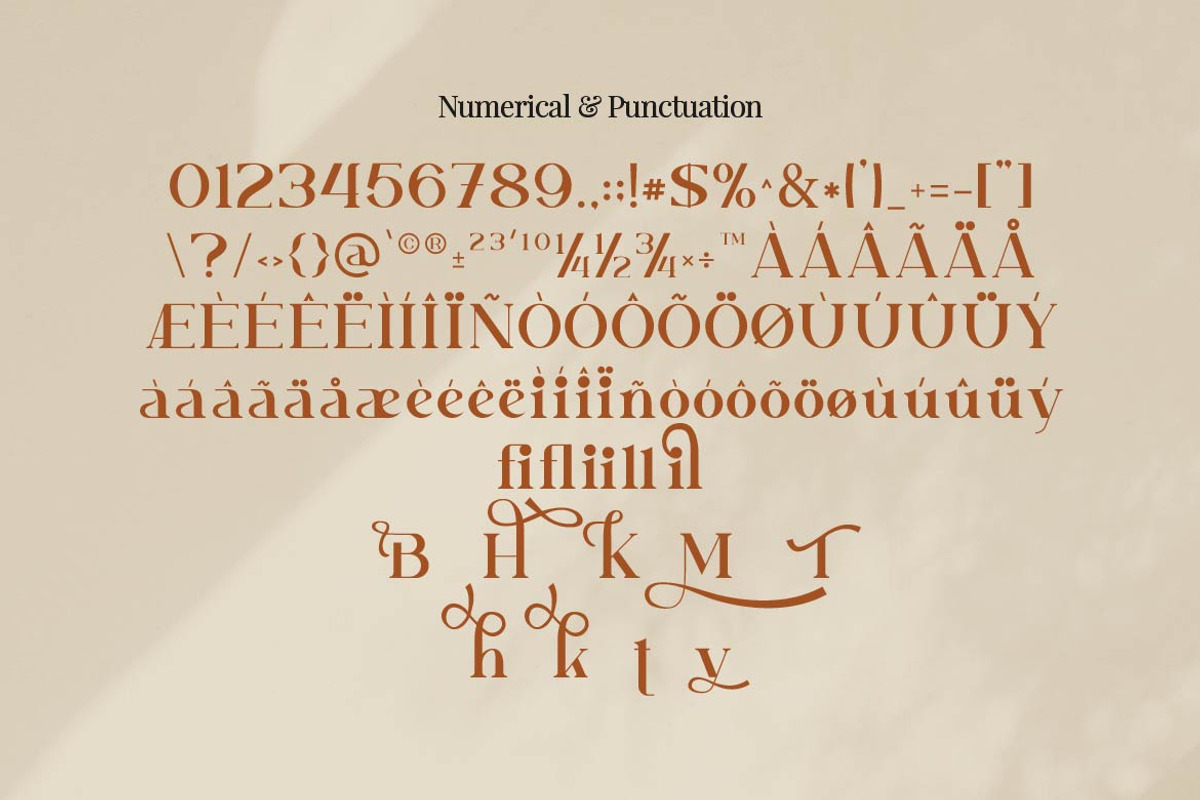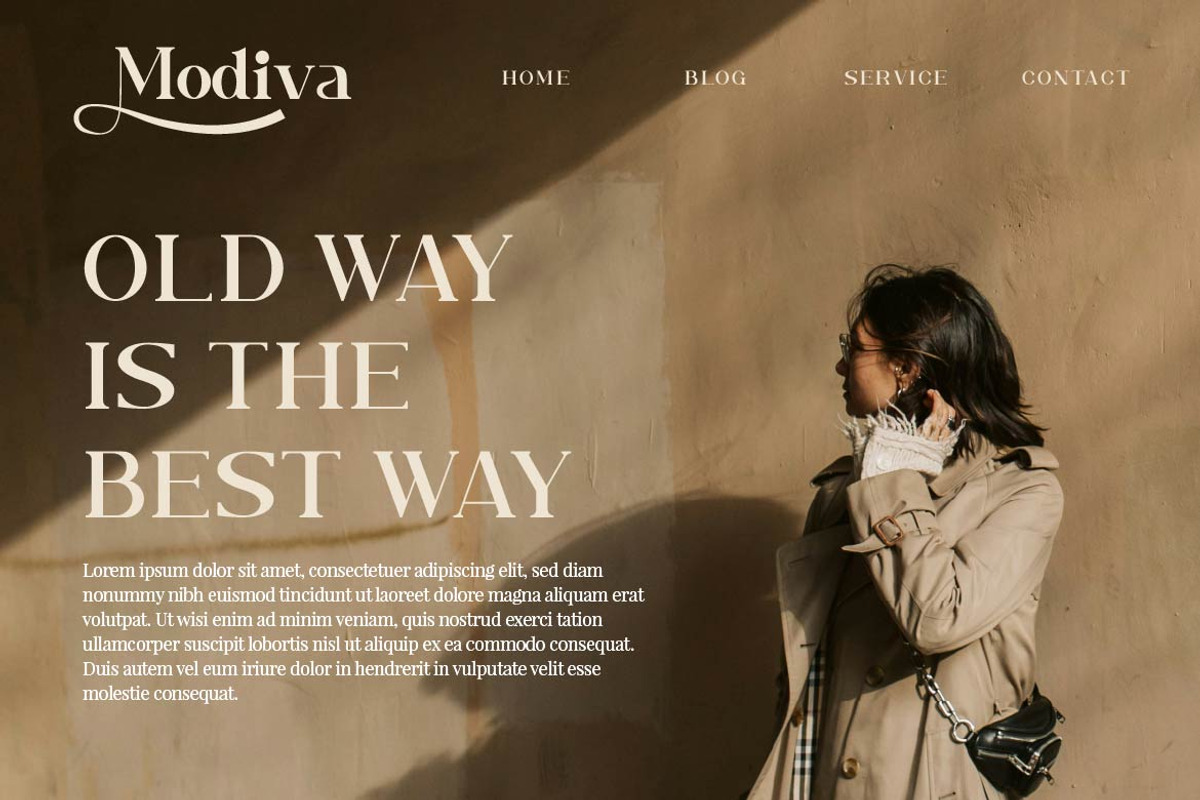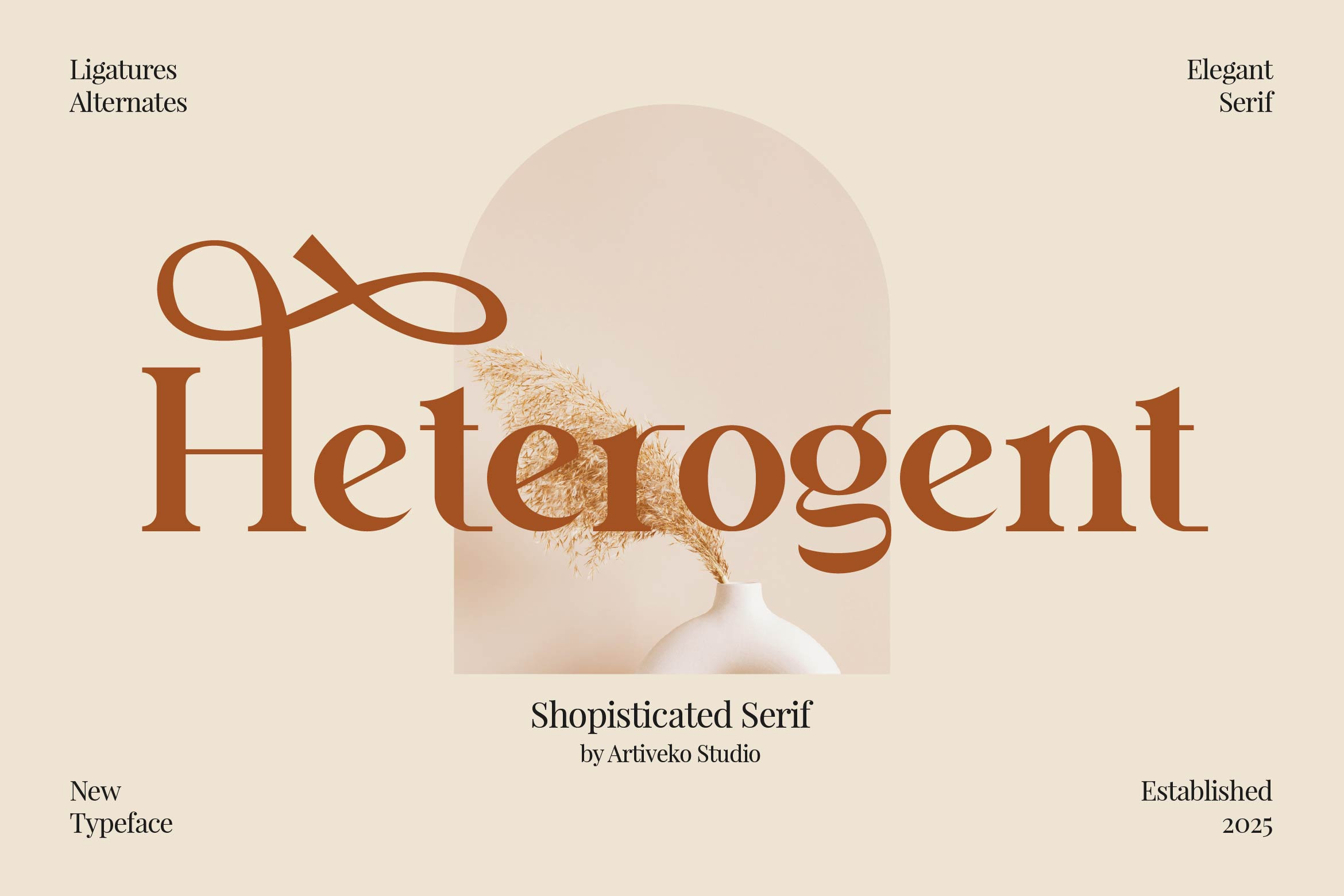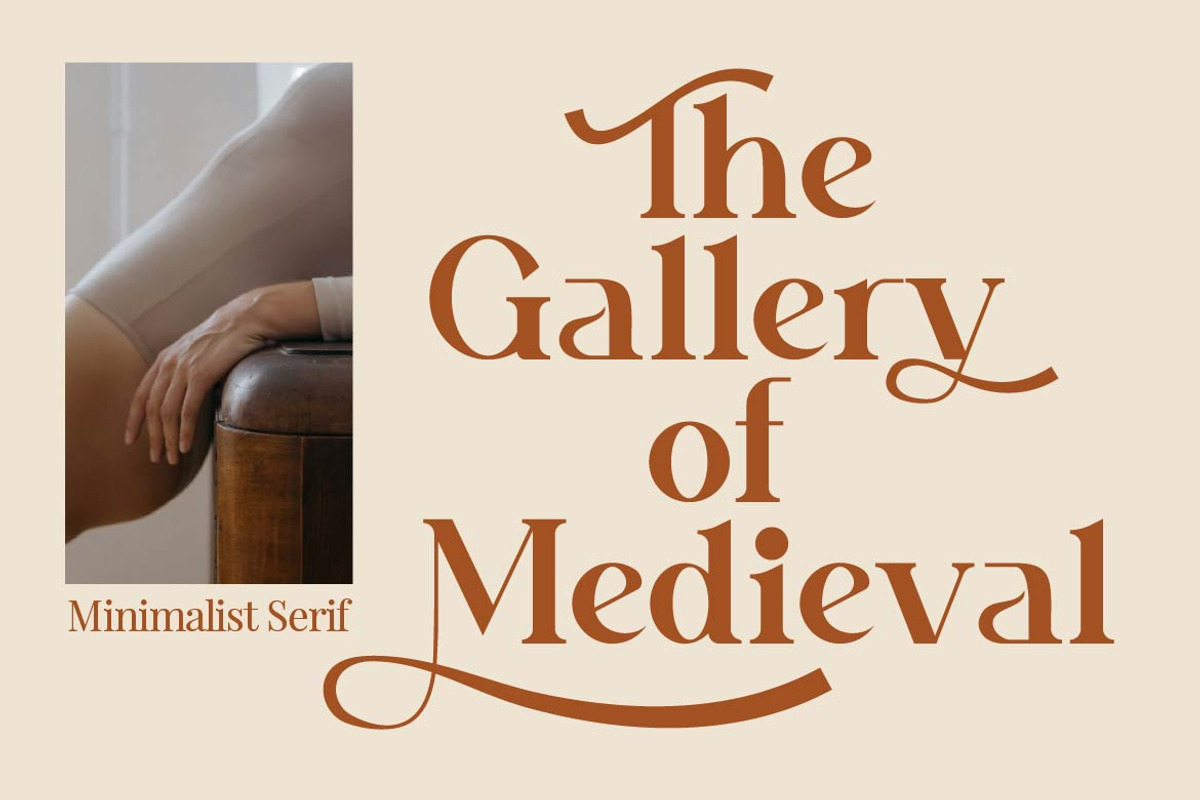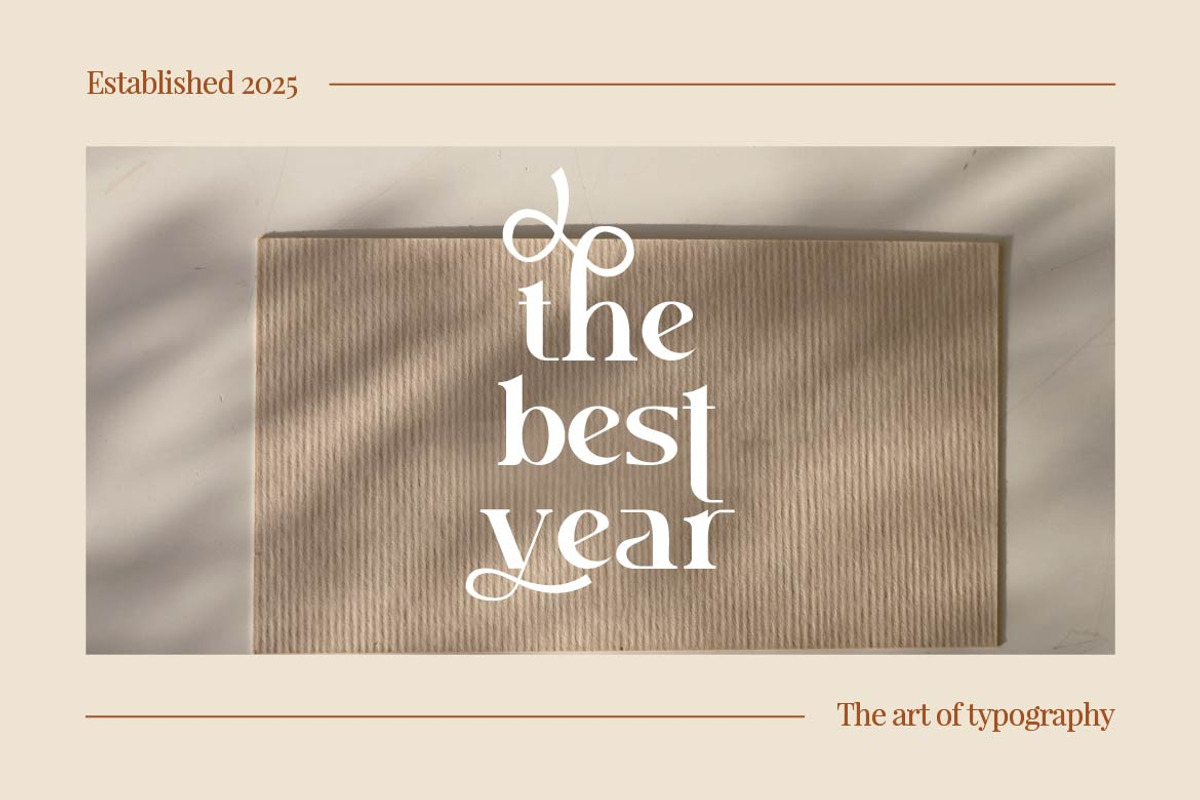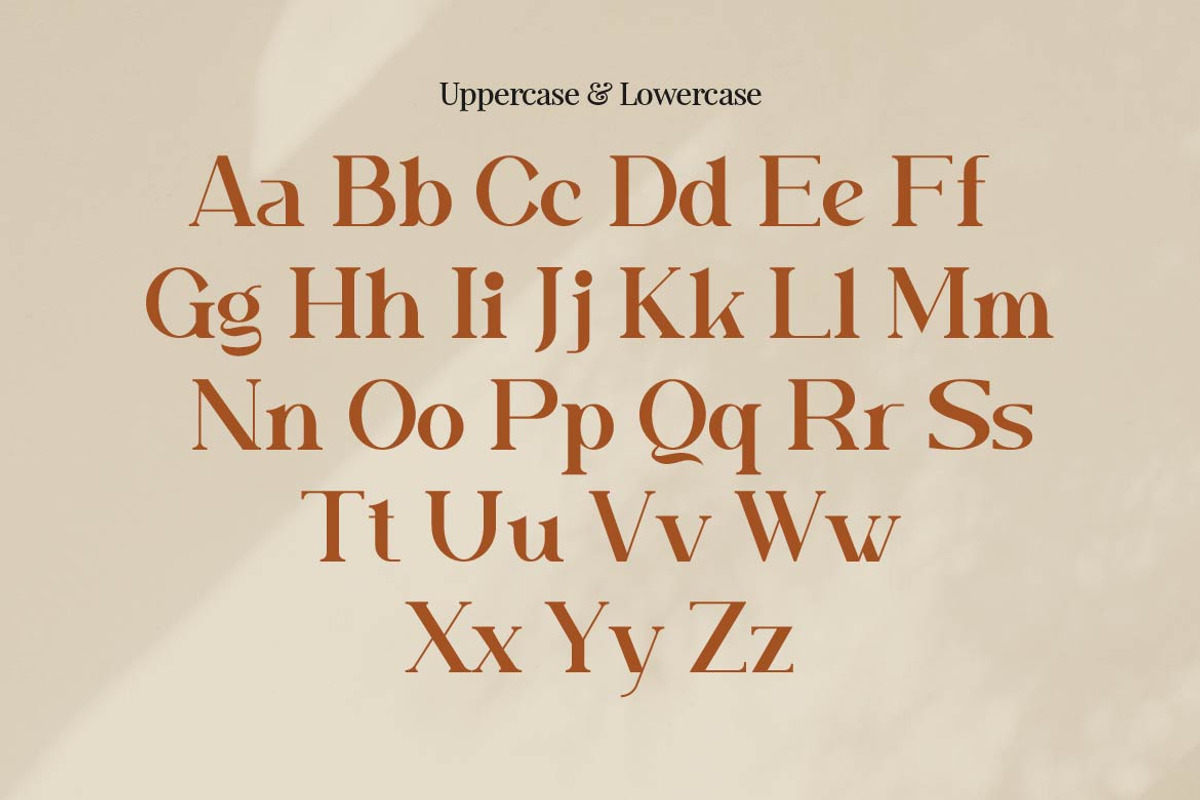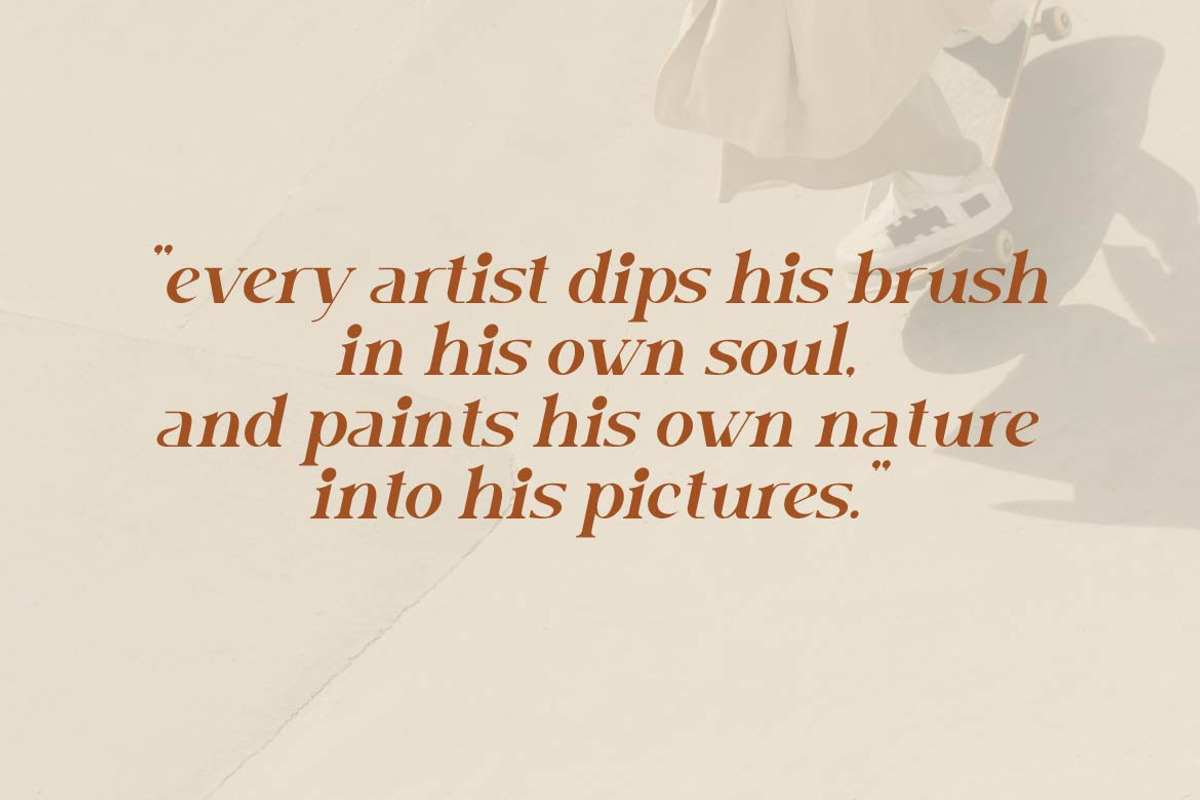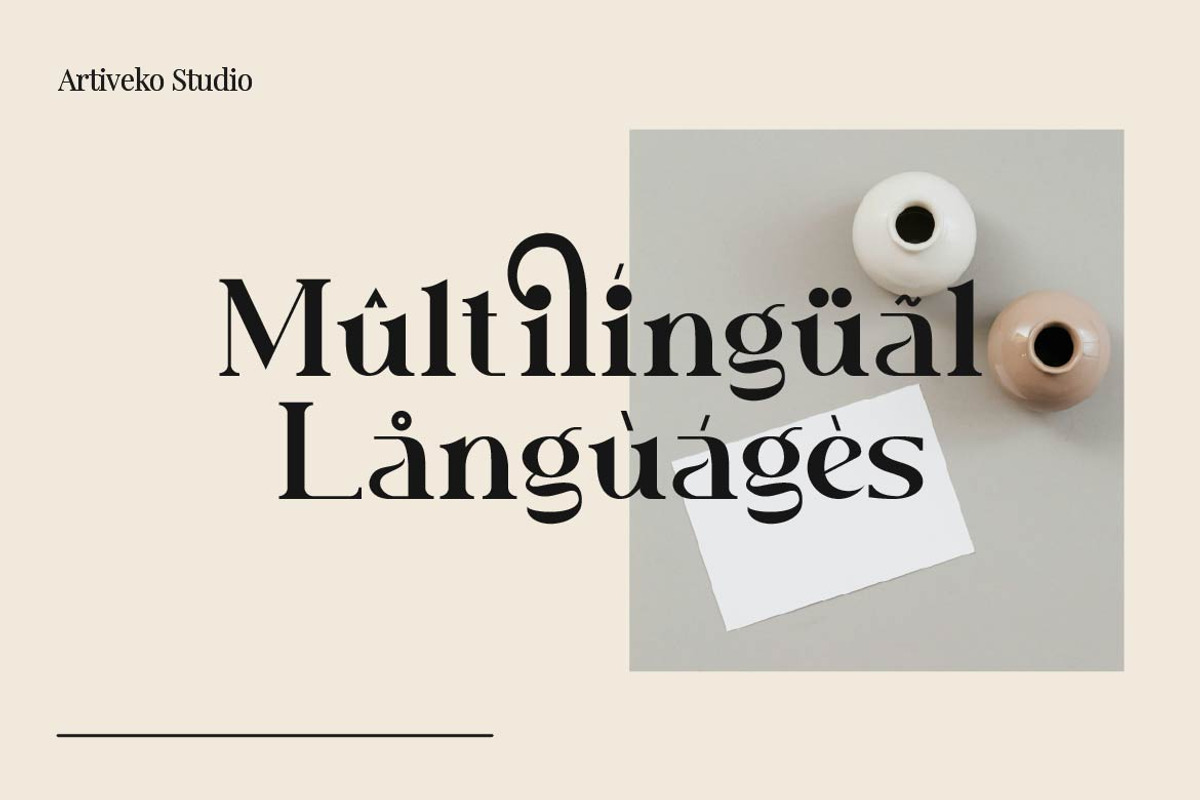
Heterogent - Premium Serif Font
Heterogent is a refined serif font crafted to embody timeless elegance and high-class sophistication. With its high-contrast strokes, sharp serifs, and graceful proportions, Heterogent is perfect for luxury branding, fashion houses, editorial layouts, perfume packaging, wedding invitations, and statement logo design.